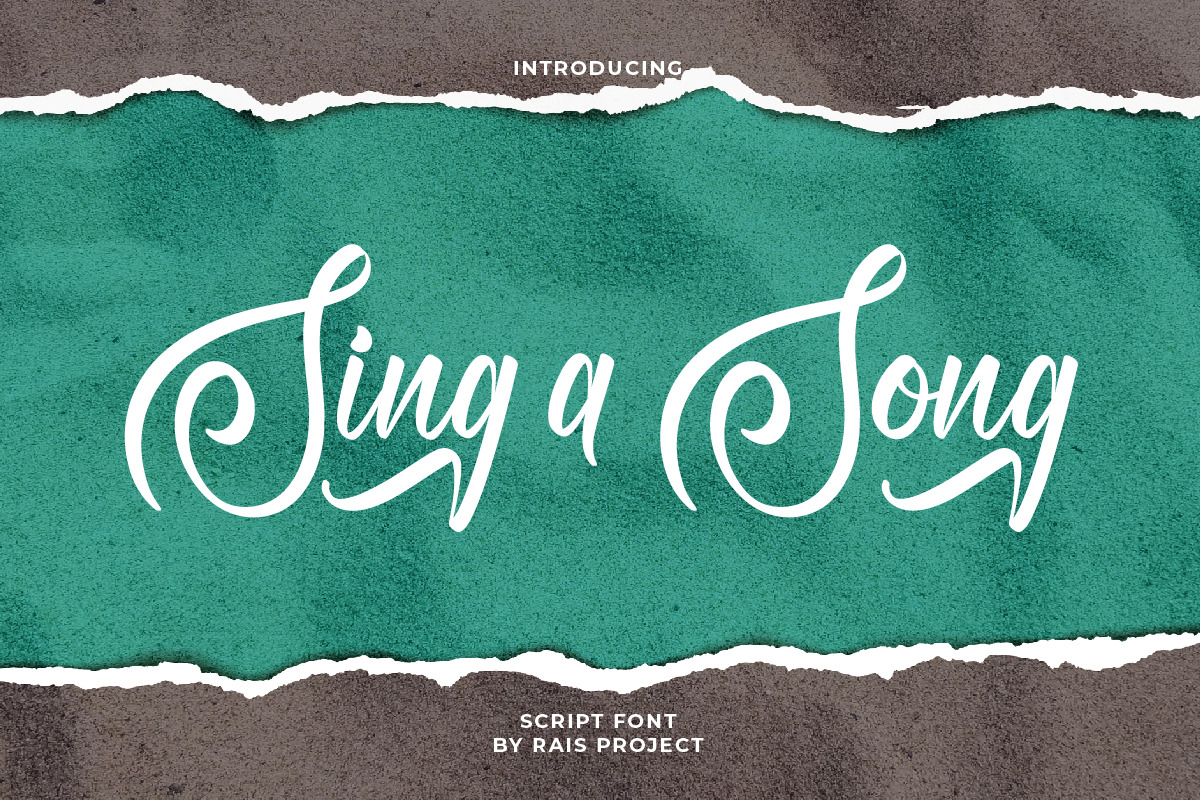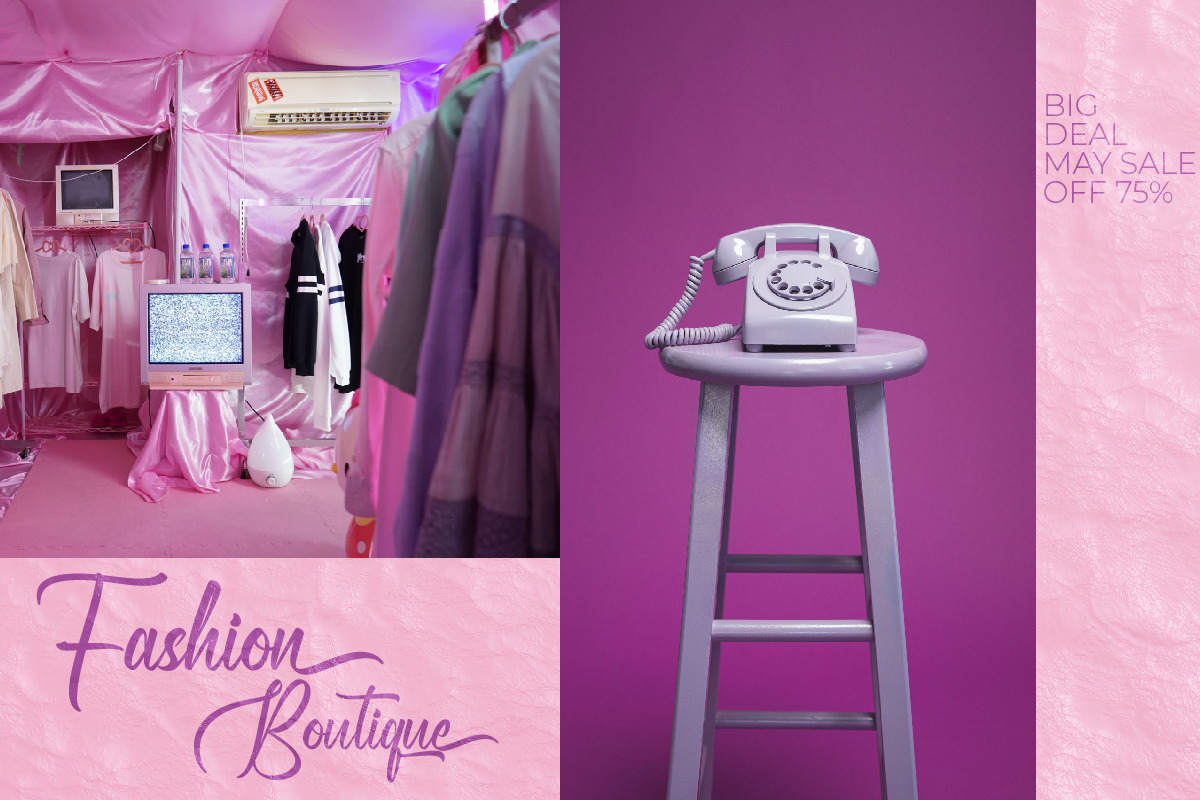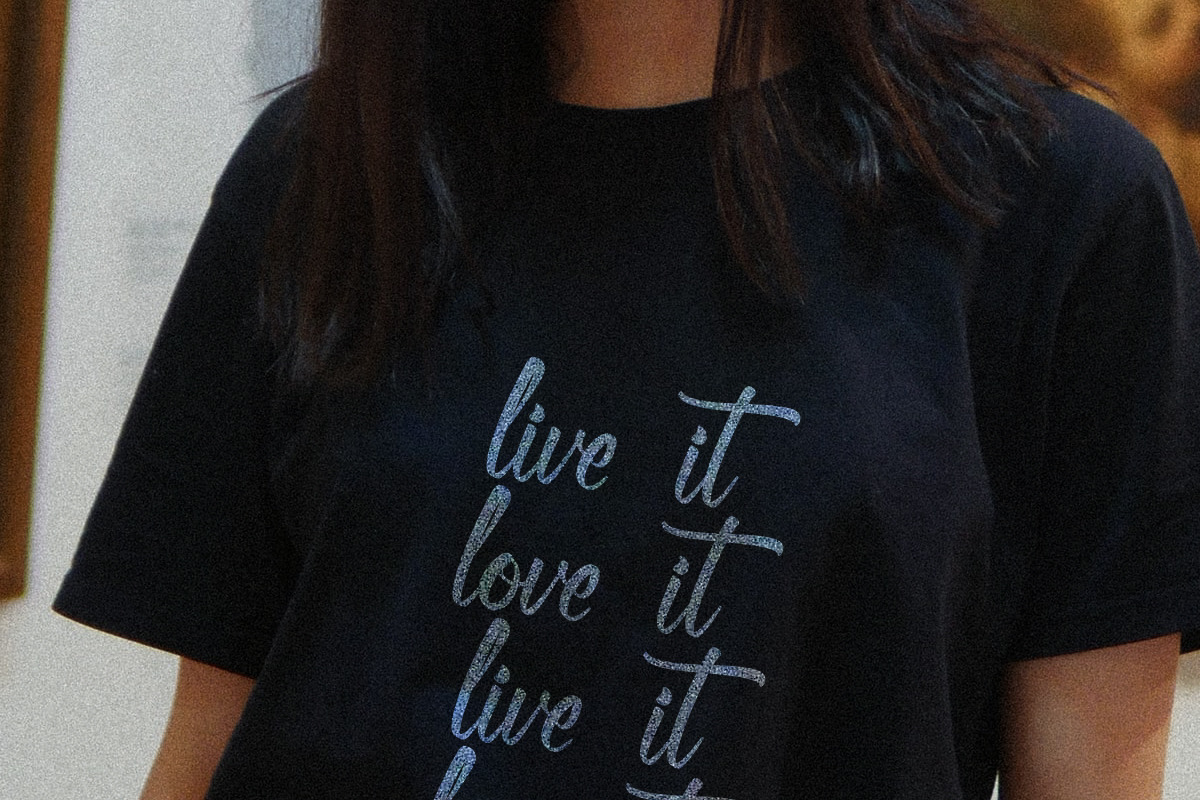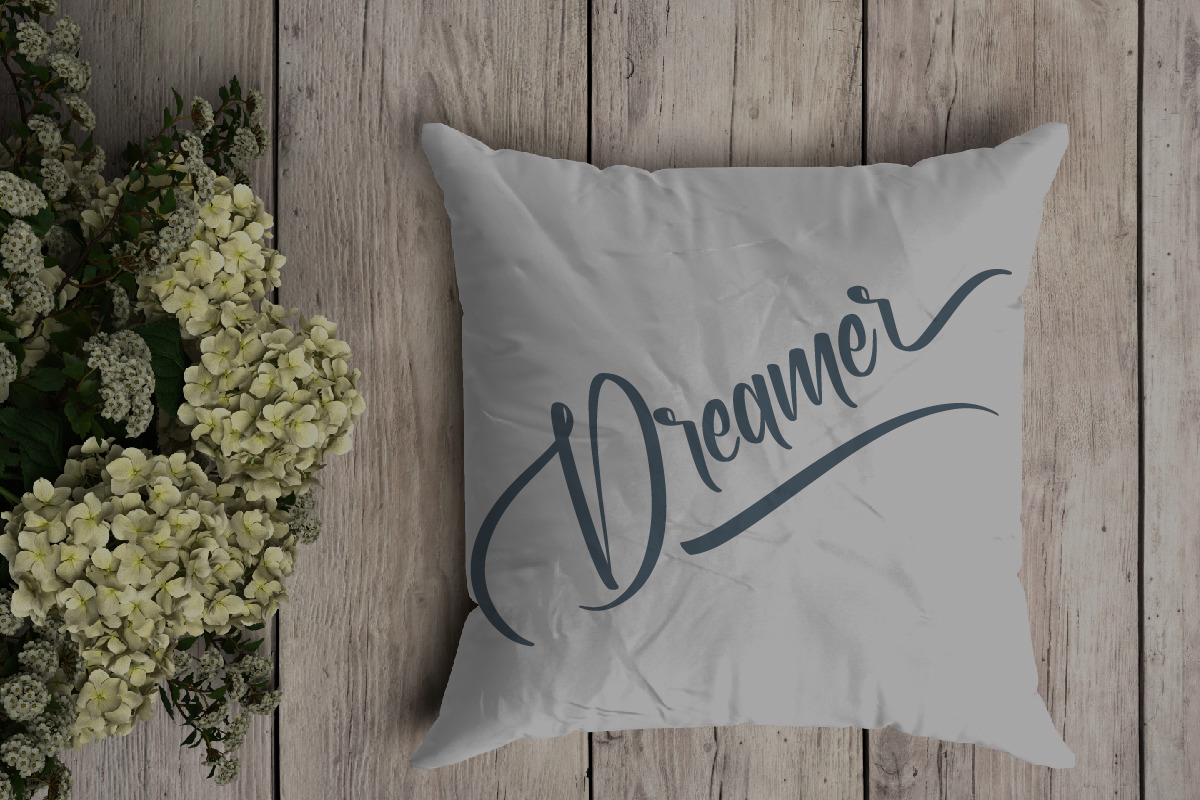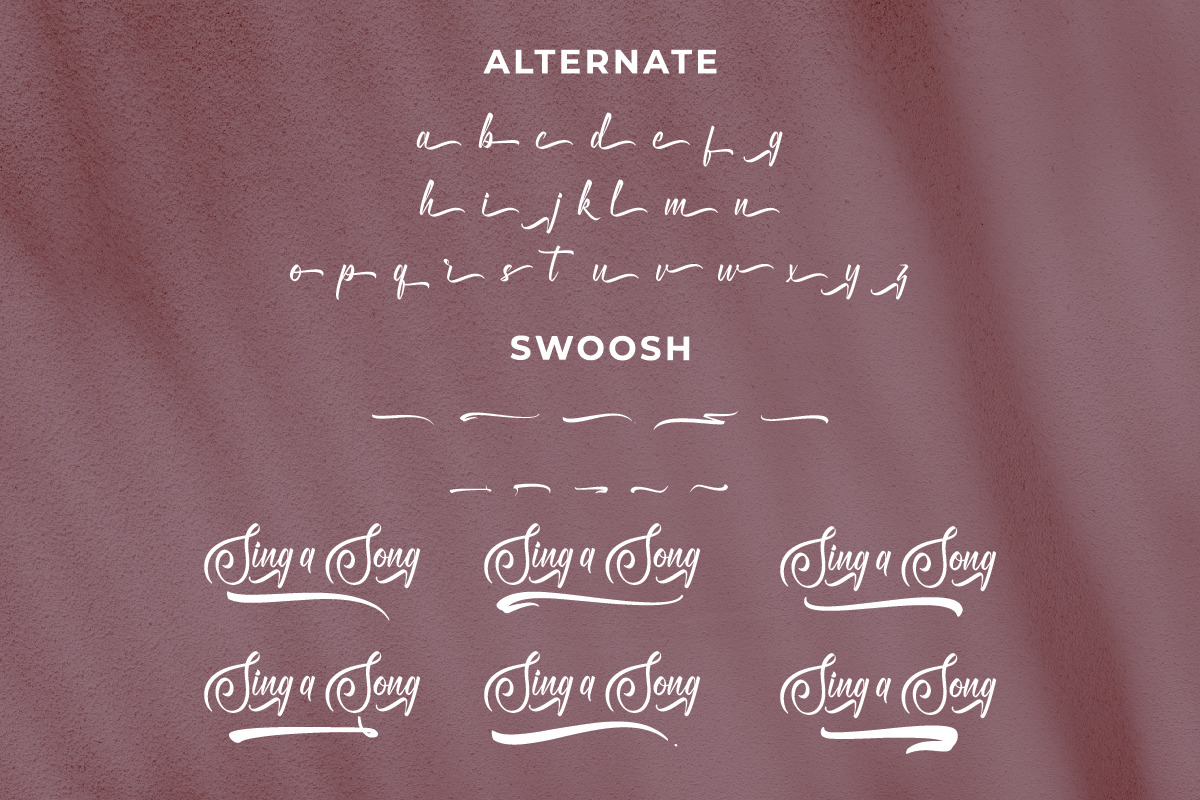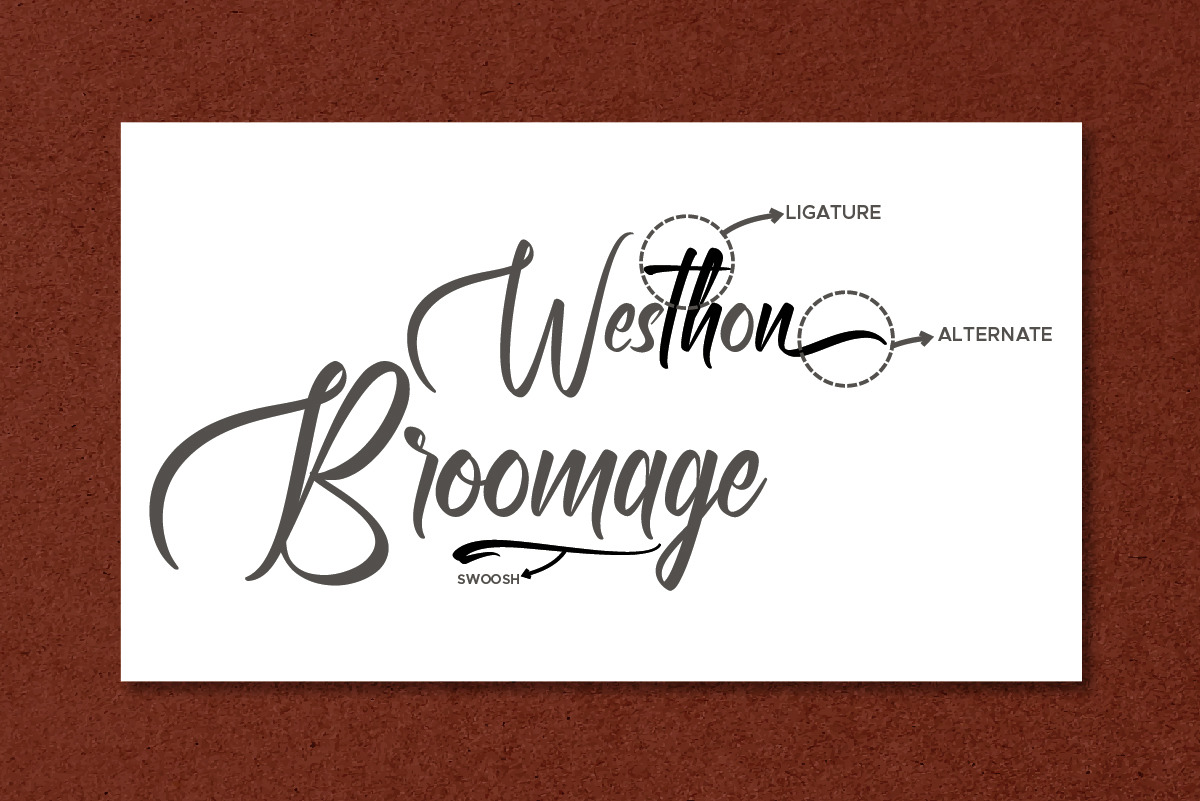
Sing A Song Handwriting Font
Sing A Song Font is a classy handwriting script font with sophisticated calligraphic style. Great for events, branding, advertising, magazine, apps, signage, invitation, stationery, social media posts, product packaging, product designs, label, comic, watermark or and any projects that need calligraphy handwriting style.